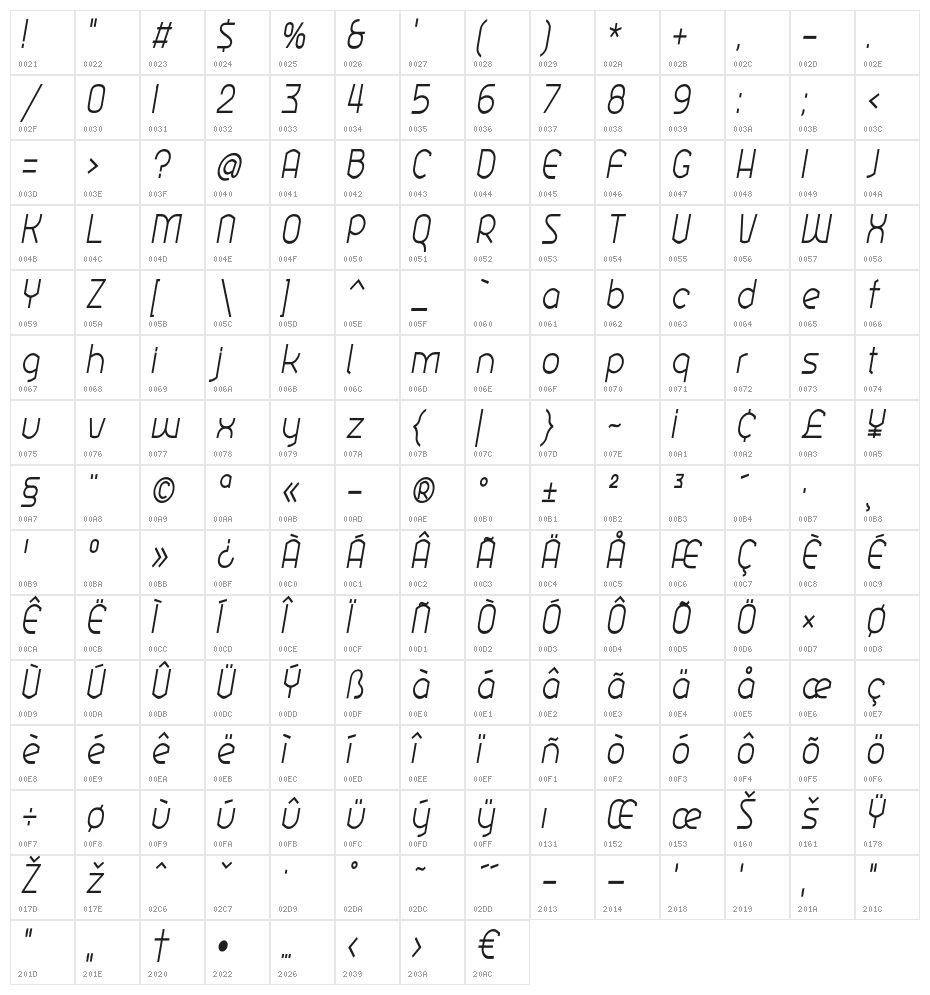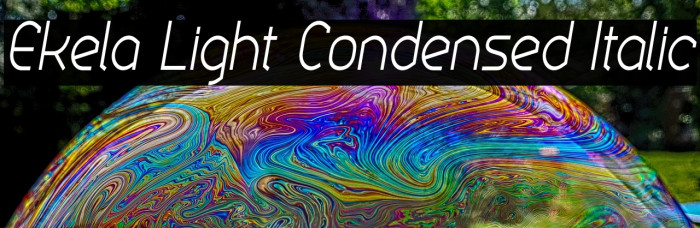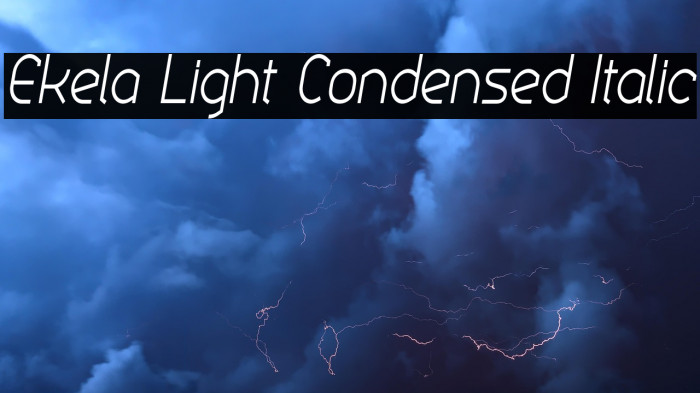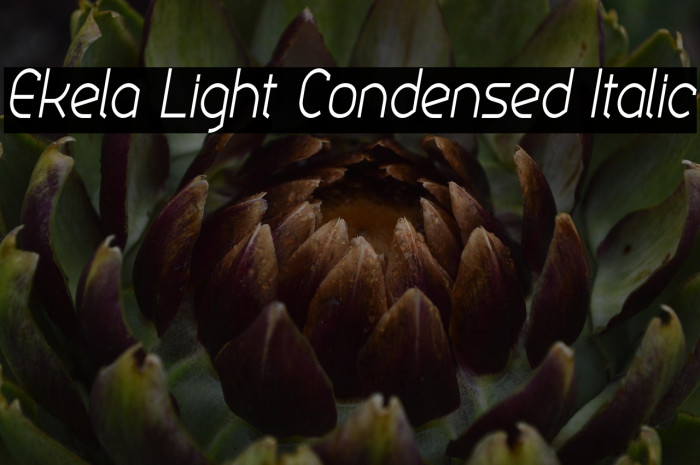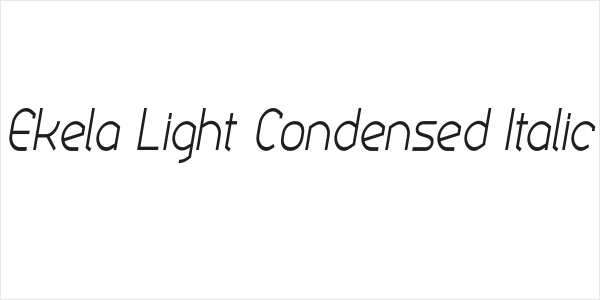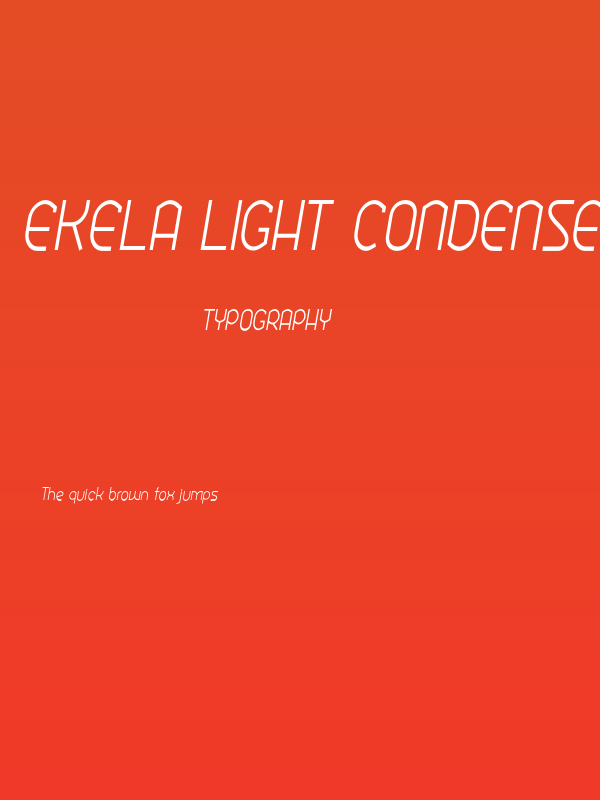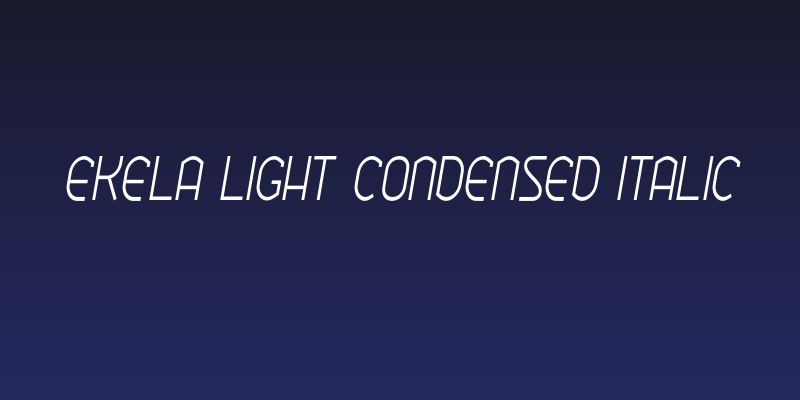
Ekela Light Condensed Italic Font
Ekela Light Condensed Italic Description
This font features a sleek and modern design with a light weight and condensed width. Its italic style adds a dynamic and forward-leaning appearance, making it suitable for contemporary and stylish applications. The characters are crafted with a smooth, flowing structure, providing a sense of elegance and sophistication. The spacing between characters is tight, enhancing its compact and efficient look. The font maintains a medium contrast in stroke thickness, balancing readability with a distinctive aesthetic. It is ideal for projects that require a modern and clean typeface with a touch of flair.
| Proposed Projects | Ideal for branding, fashion magazines, modern advertising, and digital interfaces. |